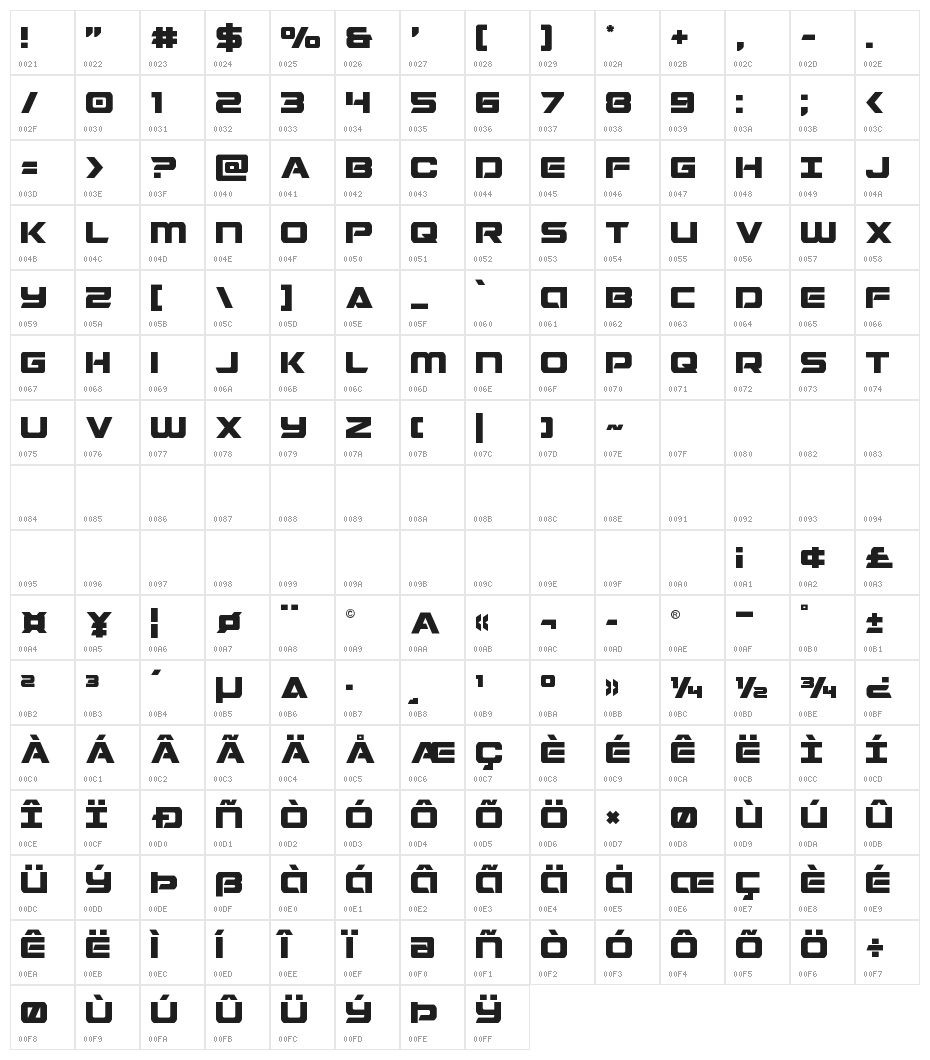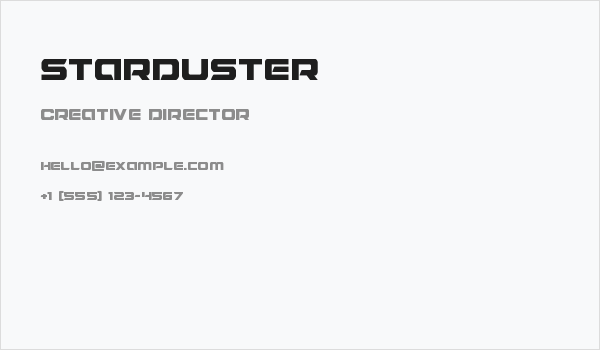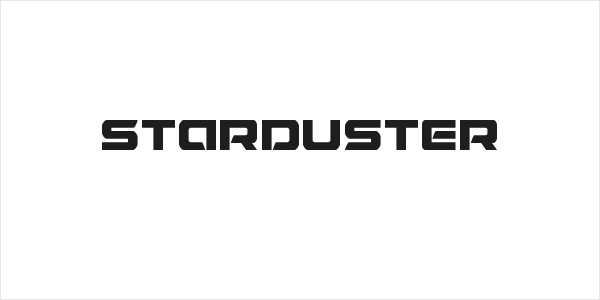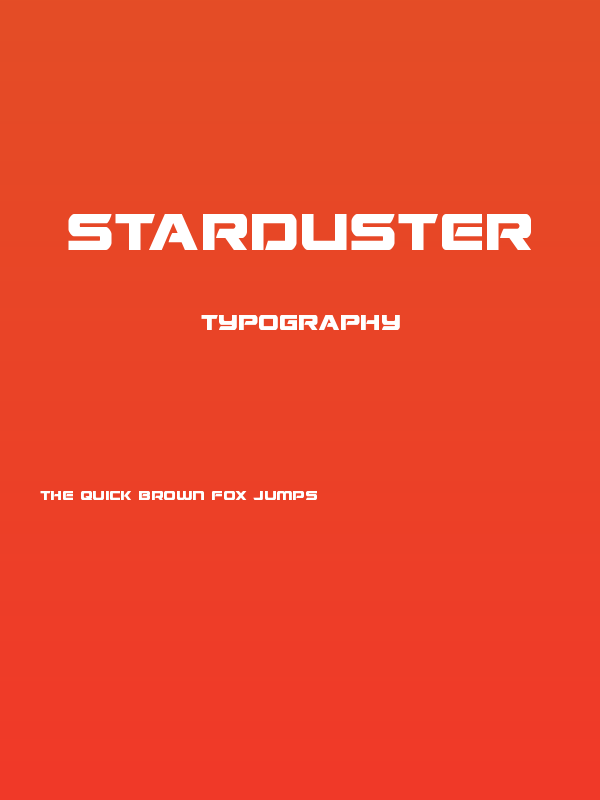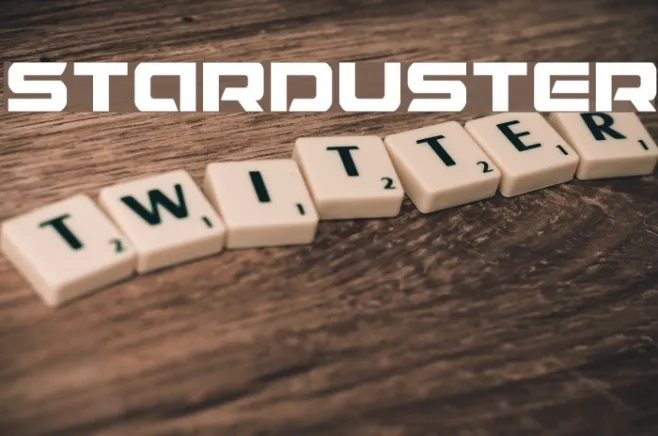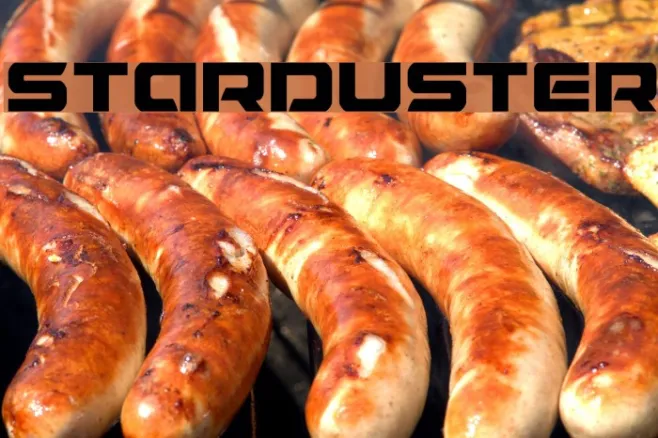
Starduster Font
Starduster Description
This font features a bold, futuristic design with geometric shapes and sharp angles. The uppercase letters are distinct with a strong presence, while the lowercase letters maintain a consistent style that complements the uppercase. The numerals are clear and bold, making them easily readable. Special characters are designed to match the overall aesthetic, providing a cohesive look across all elements. The font's style is reminiscent of sci-fi themes, making it suitable for projects that require a modern and edgy appearance.
STARDUSTER UPPERCASE
STARDUSTER LOWERCASE
STARDUSTER OTHER CHARS
| Proposed Projects | Ideal for sci-fi themed projects, video game titles, movie posters, and technology branding. |